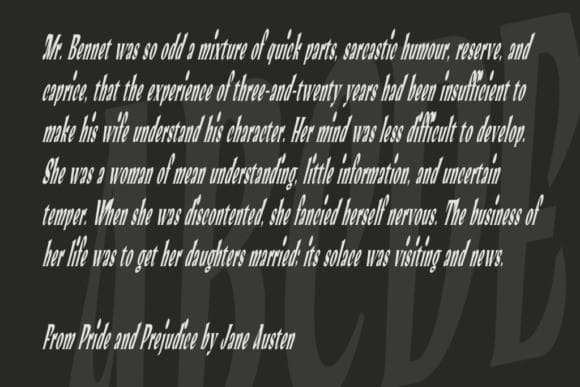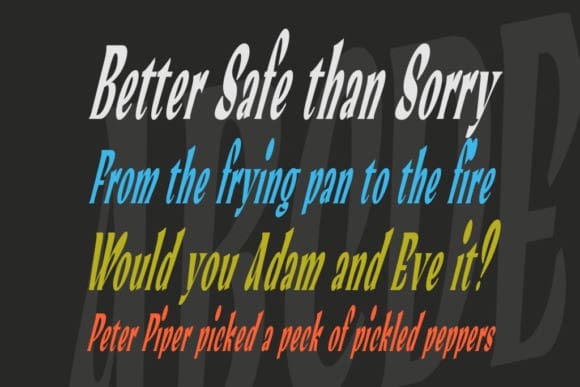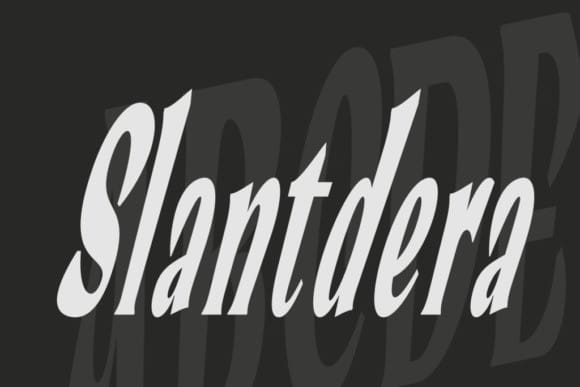
Slantdera Font
Slantdera Font, a meticulously crafted display serif font boasting a condensed style. The perfect fusion of aesthetics and readability. Ideal for all kinds of creative endeavors, it breathes life into every word and beautifully accentuates your design narrative. Step into the mesmerizing world of Slantdera and inspire your audience one stroke at a time.